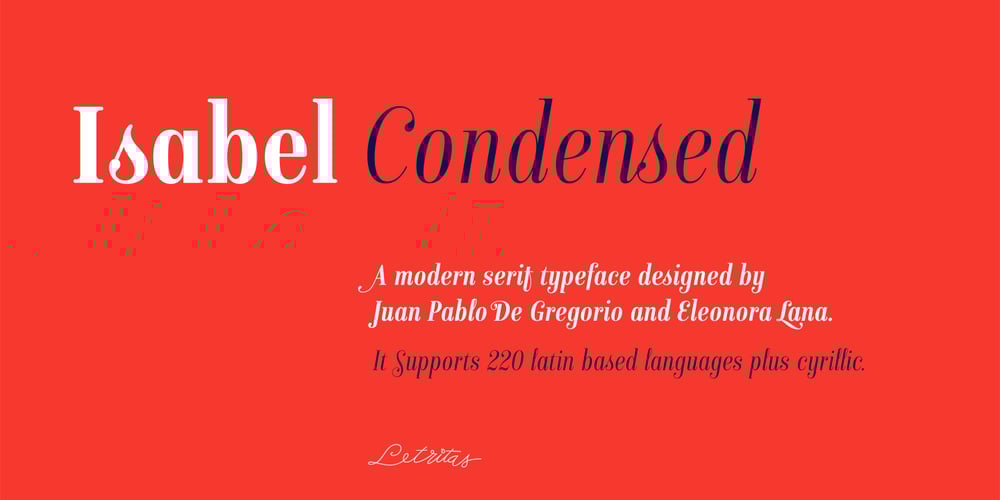
Isabel Condensed Font Family was designed by Juan Pablo De Gregorio, Eleonora Lana and published by Letritas. Isabel Condensed contains 15 styles and family package options. Isabel Condensed and Isabel were made out of necessity to create a new font for children and teenagers, that could be enough friendly and versatile for text in words or even easy-to-read long texts. The purpose of Isabel is to combine all the nice and friendly features of the simple letters that the teachers teach to the pupils at primary school, as they starting to learn to read, together with the normal editorial fonts we read every day. In this way it generates a very joyful serif font, or even friendly font, with some conservative aspects. In other words, Isabel is a font that, despite of being a “classic features” typography, is proud to show its innocent and ingenuous elements, this gives to the font a new point of view. The family is composed of 3 parts: the regular version, the italic version and the unicase version. Each one of them has 5 weights. The italic version has 825 characters; the regular and unicase have 739 and are composed for 220 latin languages, plus cyrilic.